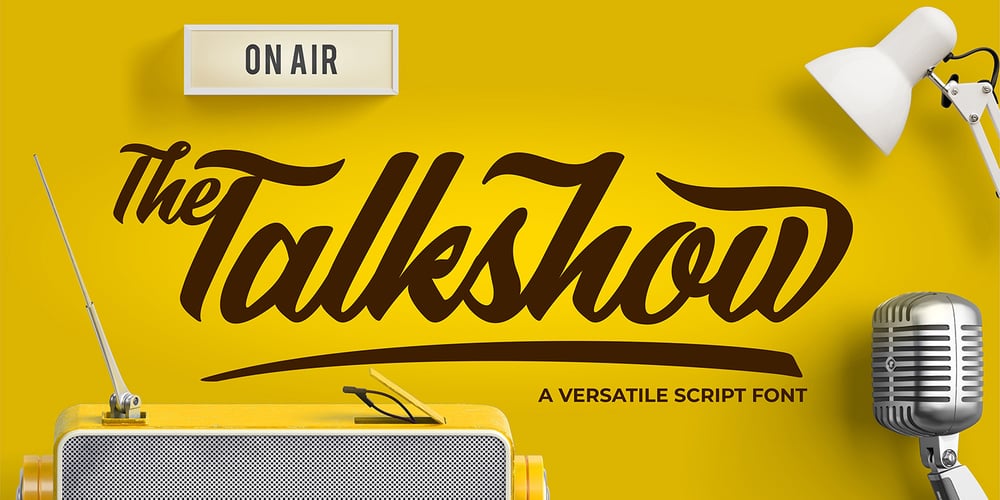
The Talkshow
The Talkshow font
The Talkshow Font Family was designed by Fajrin Ilhamy and published by Grewfont Studio. The Talkshow contains 1 styles and family package options. The Talkshow is a classy script font. Combined with calligraphic styled handwritings will make your design project more powerful. Made for any professional project branding. It is the best for logos, branding and of lettering quotes. Every letter and character has a unique and beautiful touch. Enriched with tons of stylistic alternates and beautiful ligatures, The Talkshow is your best choice!